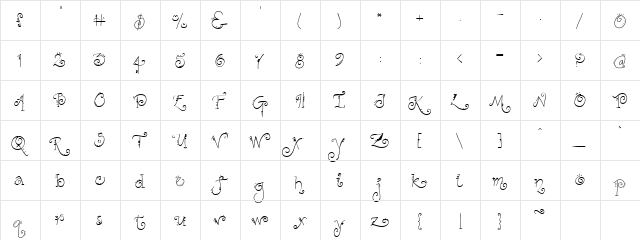
Lindsay Parrothead Regular Font Preview
Lindsay Parrothead Regular
Lindsay Parrothead Regular Font Details
Design Context for Lindsay Parrothead Typeface
Lindsay Parrothead is a composed and adaptable typeface that performs quietly and consistently across a wide range of design contexts.